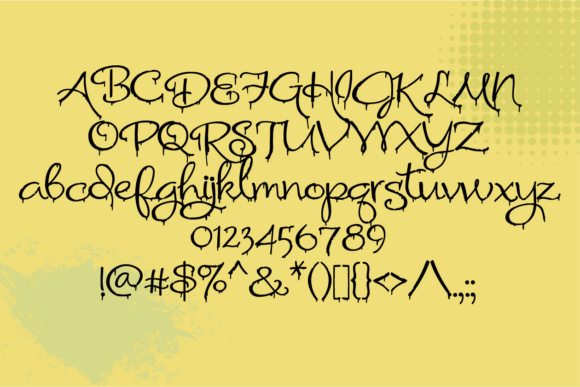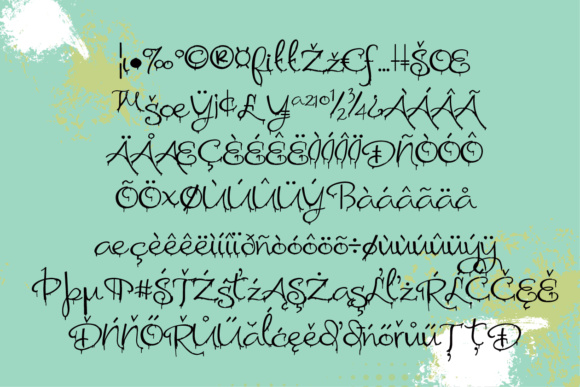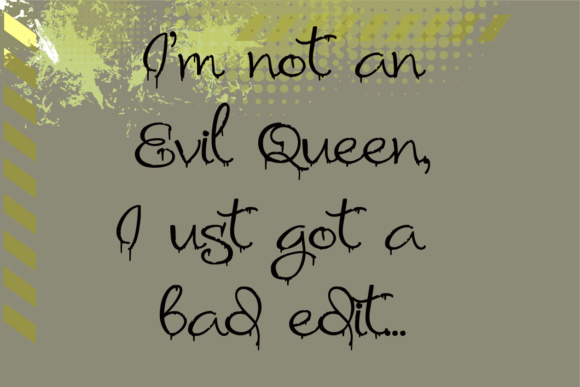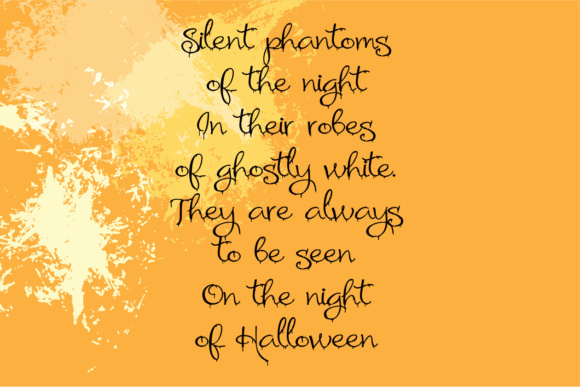
HomeScript FontsRadioactive Decay Font Script Fonts Radioactive Decay Font FacebookXPinterestWhatsApp Radioactive Decay Font Poster 2 Radioactive Decay Font Poster 3 Radioactive Decay Font Poster 4 Radioactive Decay Font Poster 5 About Radioactive Decay Font This pretty hand-written script has been decayed away and is drippy goo. DOWNLOAD ON CREATIVE FABRICAThis font is sold and delivered by Creative Fabrica. Font Canyon may earn a commission if you buy through this link. People also explored Townies Font Qistty Font Million Boomer Font Valentina Chocolate Font Star Party Font Instyle Font Staelview Font Ganksy Realistic Mock-ups on Vintage Background 313 0 TagsRadioactive Decay Font Previous articleMegajoule FontNext articlePlay Fairy Font LEAVE A REPLY Cancel reply Comment: Please enter your comment! Name:* Please enter your name here Email:* You have entered an incorrect email address! Please enter your email address here Website: Save my name, email, and website in this browser for the next time I comment. Personal Use Free Fillguy Font Personal Use Free Read more about this font Cretino Personal Use Free Read more about this font Hagia Signal Personal Use Free Read more about this font Happy Camping Personal Use Free Read more about this font BLOG Fonts That Capture the Spirit of New York City New York City is more than just a place—it’s an experience, a rhythm, a visual language... Elegant Wedding Invitation Fonts – Handwritten & Script Fonts Transform Your Website: Elevate Your Typography with 7 Best Web Font Generators Modern Sans-Serif Fonts That Brands Love in 2025